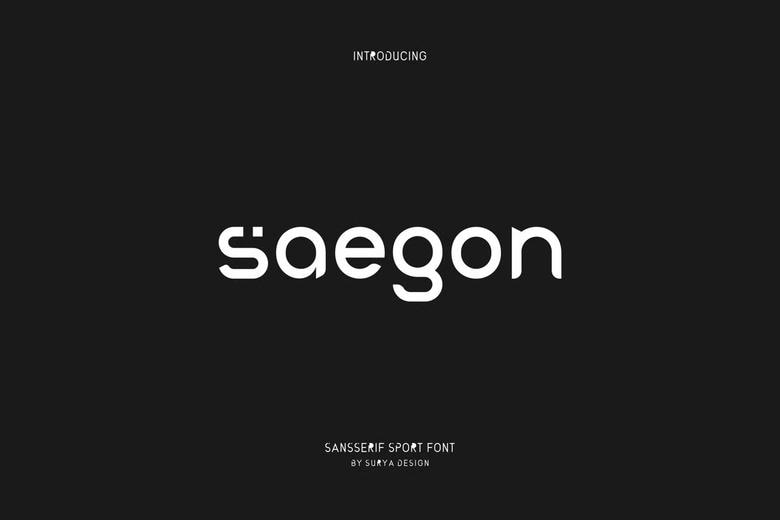
Saegon Font
Saegon is a modern bold and authentic sans serif font. This font is perfect for branding projects, Logo design, Clothing Branding, product packaging, magazine headers, or simply as a stylish text overlay to any background image.
Saegon Sans Serif Font